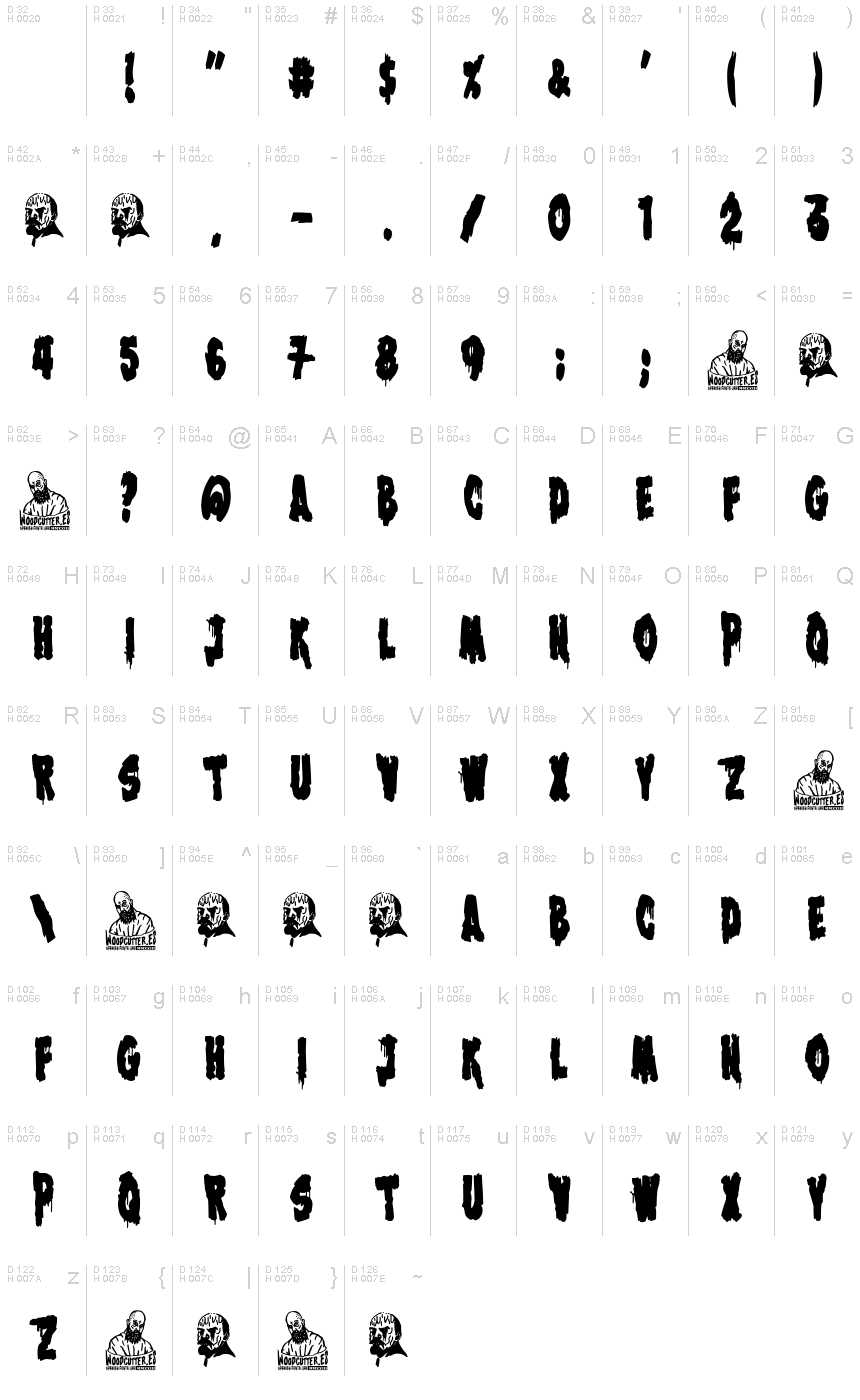
Lenin is a Zombie
Lenin is a Zombie is a bold, fearsome font that immediately commands attention. The jagged, splintered letterforms evoke a sense of menacing, undead horror, perfect for setting a chilling tone in horror-themed designs. Crafted by the skilled typographer Woodcutter, this display font exudes an unsettling, Gothic aesthetic that would be well-suited for movie posters, book covers, and other high-impact visual applications.
The font's condensed width lends an intense, claustrophobic feel, while the heavy weight imbues the characters with an unwavering, undead presence. Whether used for haunting headlines, ominous taglines, or spine-tingling title sequences, Lenin is a Zombie effectively captures the essence of the macabre and the supernatural. Its versatility allows designers to craft captivating, spine-chilling visuals that will leave a lasting impression on any audience.
Lenin Is a Zombie